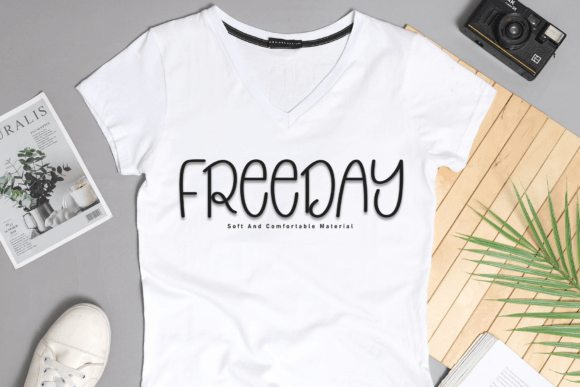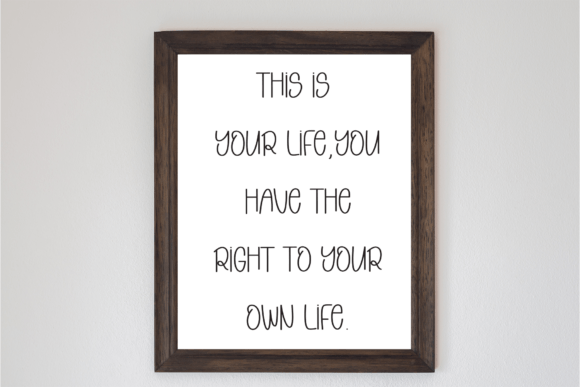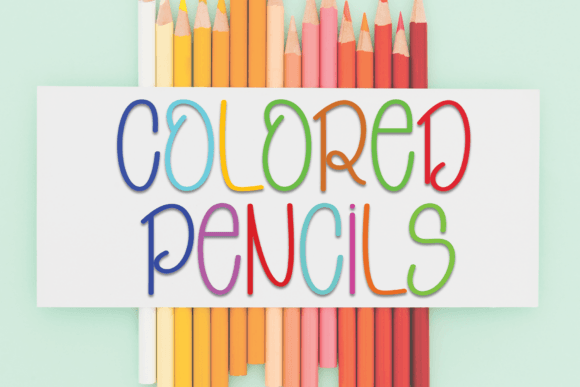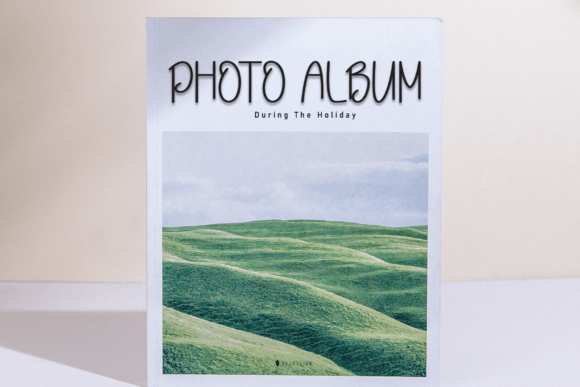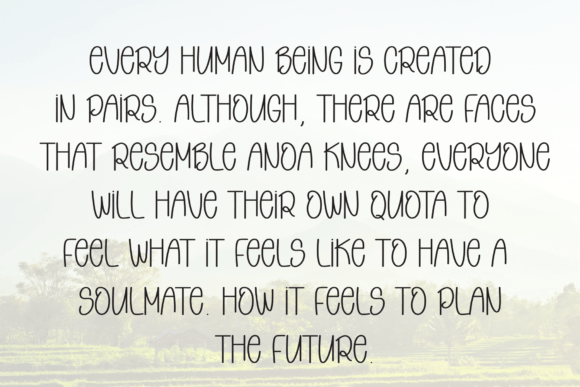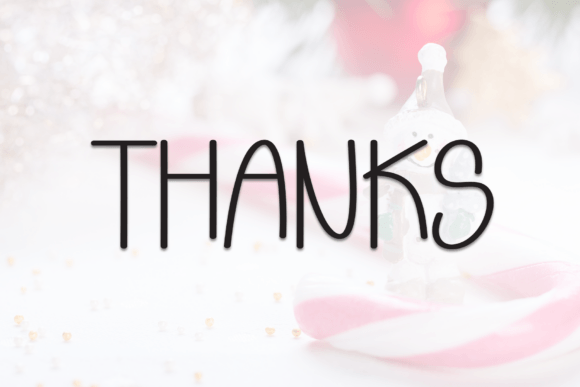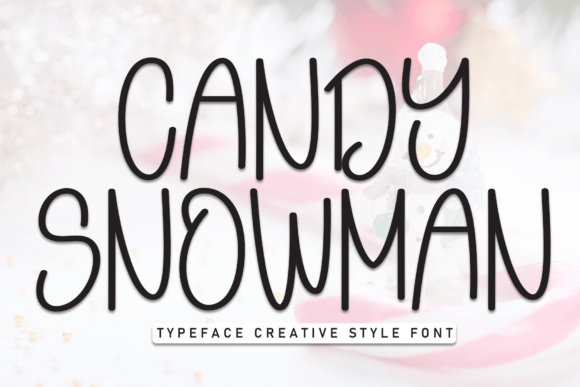
Candy Snowman Font: Add a Dash of Sweetness to Your Designs
Are you looking for a font that can add a touch of whimsy and friendliness to your designs? Look no further than the Candy Snowman Font, a delightfully charming, hand-crafted font that’s perfect for a variety of creative projects. In this article, we’ll introduce you to this beautiful font, explore its features, and discuss how you can use it to elevate your designs.
What is Candy Snowman Font?
Candy Snowman Font is a handwritten display font that’s aptly named for its playful nature. This font is designed to bring a dash of sweetness and an element of friendliness to your designs, making it perfect for projects that require a bit of whimsy. Whether you’re creating wedding invitations, personalized greeting cards, or any other design that needs a touch of personality, Candy Snowman Font is an excellent choice.
Features of Candy Snowman Font
Candy Snowman Font is a hand-crafted font that’s been carefully designed to combine fun with function. Here are some of its key features:
- Handwritten style: Candy Snowman Font has a beautiful, handwritten style that’s perfect for creating personalized and unique designs.
- Playful nature: This font has a playful nature that’s sure to add a touch of whimsy to your designs.
- Versatile: Candy Snowman Font is versatile and can be used for a variety of creative projects, from wedding invitations to greeting cards and more.
- Easy to read: Despite its playful nature, Candy Snowman Font is easy to read, making it perfect for designs that require a clear and concise message.
Uses of Candy Snowman Font
Candy Snowman Font is a versatile font that can be used for a variety of creative projects. Here are some of the ways you can use this font:
- Wedding invitations: Add a touch of sweetness and romance to your wedding invitations with Candy Snowman Font.
- Personalized greeting cards: Create personalized greeting cards for special occasions, such as birthdays, holidays, and anniversaries.
- Party decorations: Use Candy Snowman Font to create party decorations, such as banners, garlands, and more.
- Branding and packaging: Add a touch of whimsy to your branding and packaging with Candy Snowman Font.
Tips for Using Candy Snowman Font
Here are some tips for using Candy Snowman Font effectively:
- Use it sparingly: While Candy Snowman Font is beautiful, it’s best to use it sparingly to avoid overwhelming your design.
- Pair it with other fonts: Experiment with pairing Candy Snowman Font with other fonts to create a unique and interesting design.
- Experiment with colors: Try out different colors and color combinations to add depth and interest to your design.
Candy Snowman Font is a beautiful, hand-crafted font that’s perfect for adding a touch of sweetness and whimsy to your designs. With its playful nature, versatility, and ease of use, this font is sure to become a favorite among designers and crafters. Whether you’re creating wedding invitations, personalized greeting cards, or any other design that needs a bit of personality, Candy Snowman Font is an excellent choice. So why not give it a try and see how it can elevate your designs?
In conclusion, Candy Snowman Font is a delightful font that’s sure to bring a dash of sweetness and whimsy to your designs. Its playful nature, versatility, and ease of use make it perfect for a variety of creative projects. So why not give it a try and see how it can elevate your designs?